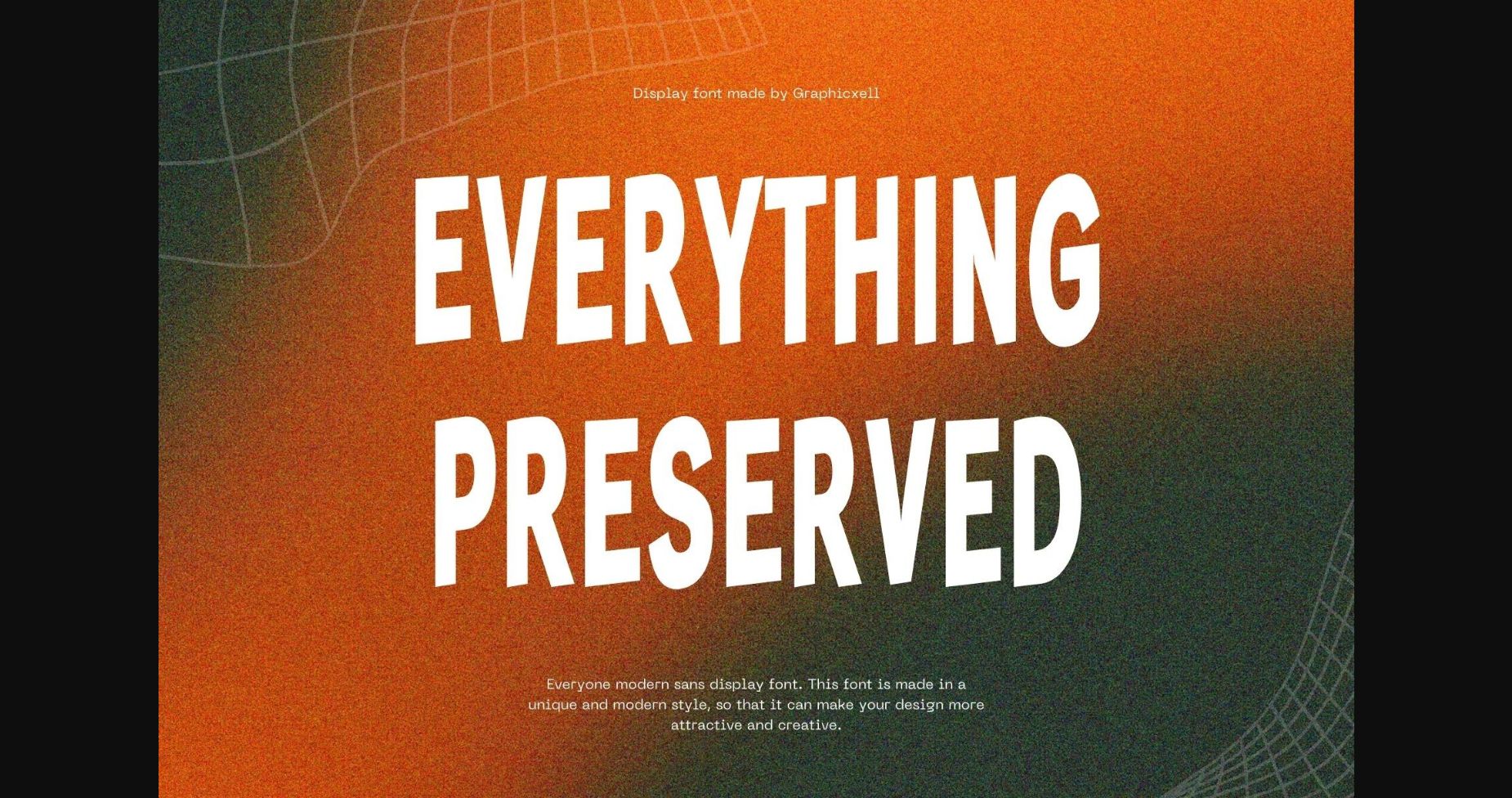
About Everything Preserved Font
Everything Preserved is a modern and stylish sans-serif font that exudes sophistication and versatility. With its clean lines and balanced proportions, it brings a contemporary edge to any design project. Whether used for branding, editorial layouts, or web designs, this font delivers a timeless elegance. Its versatility allows it to adapt to various contexts while maintaining a refined and polished appearance.